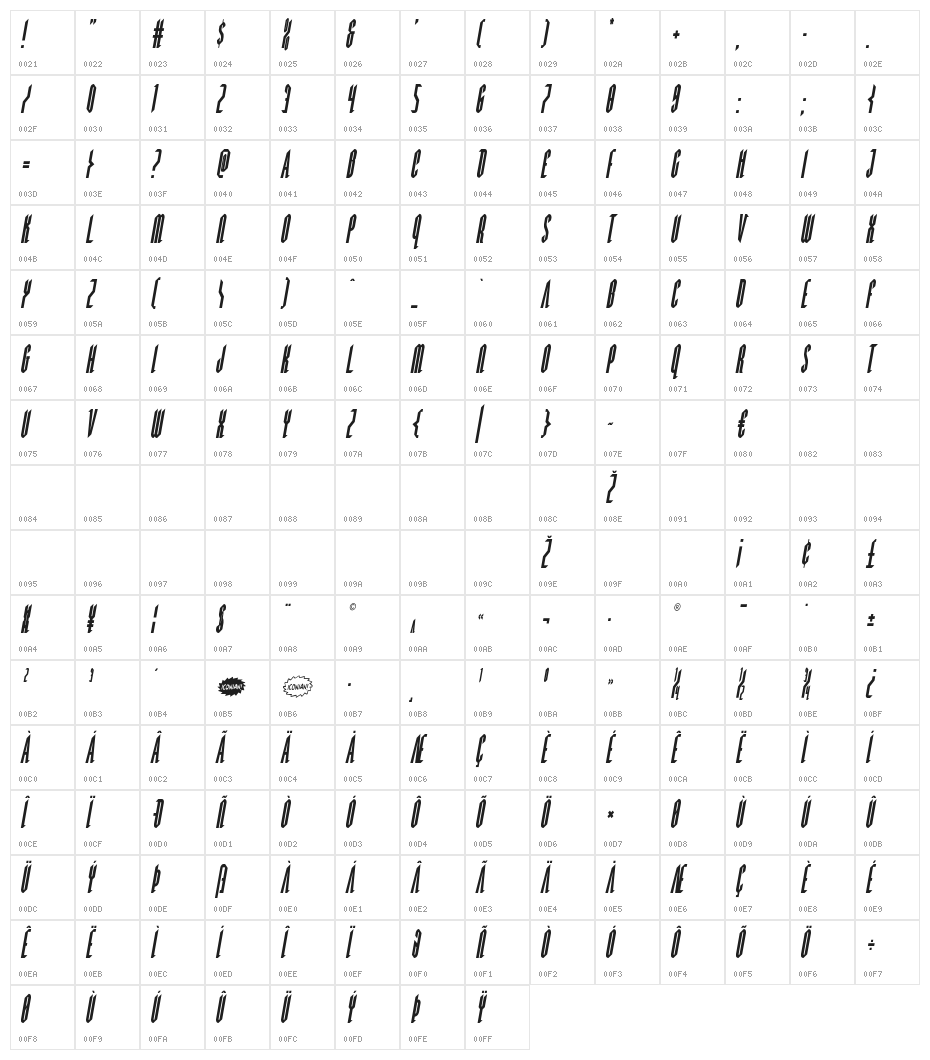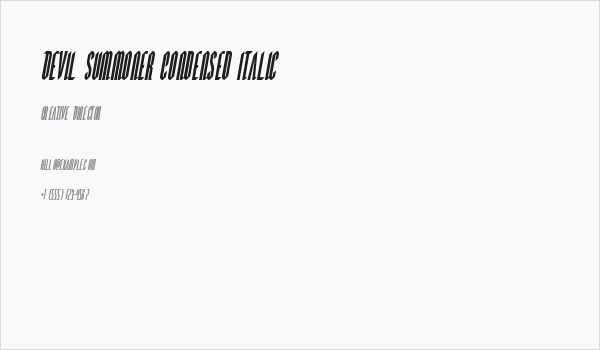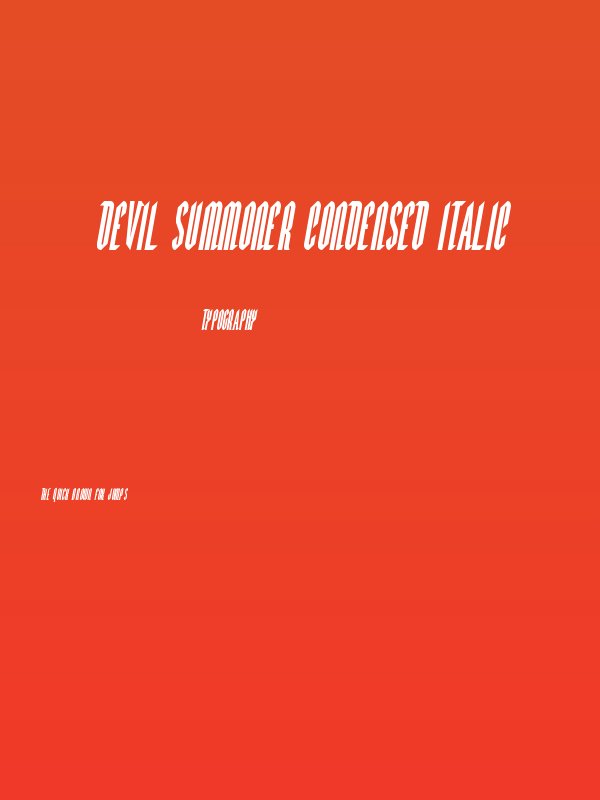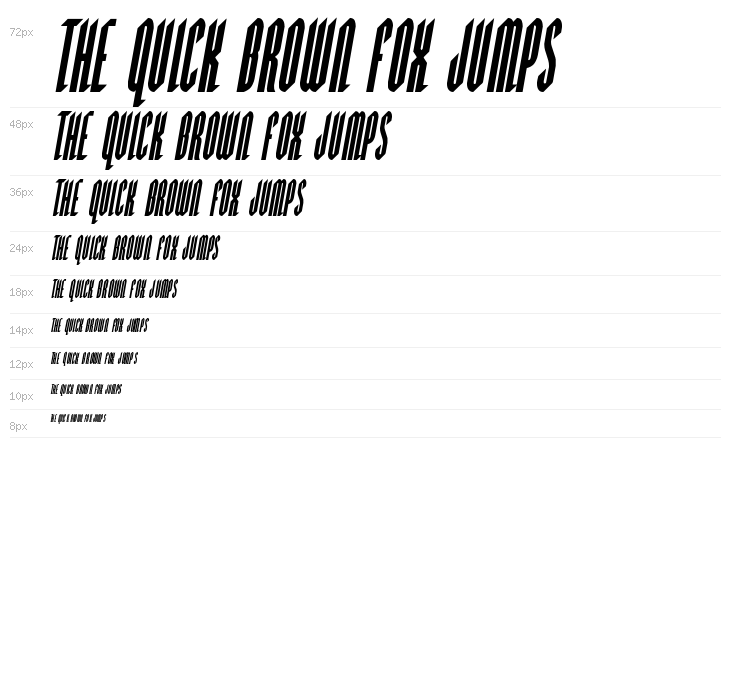
Devil Summoner Condensed Italic Font
Devil Summoner Condensed Italic Description
This font features a bold and dynamic style with a strong italic slant, giving it an energetic and forward-moving appearance. The characters are condensed, which enhances its compact and impactful look. The strokes are thick and consistent, providing a robust and solid feel. The sharp angles and clean lines contribute to its modern and edgy aesthetic, making it suitable for attention-grabbing designs. The uppercase and lowercase letters maintain a uniform style, ensuring readability despite the condensed form. The numerals and special characters are designed to match the boldness and slant of the alphabet, creating a cohesive overall appearance.
| Proposed Projects | Ideal for posters, headlines, branding, and any design requiring a strong visual impact. |